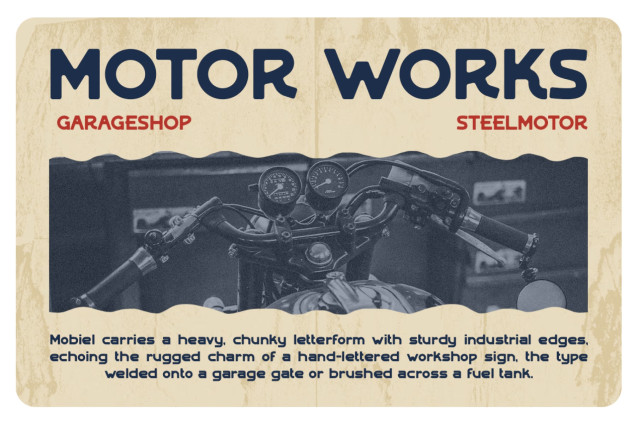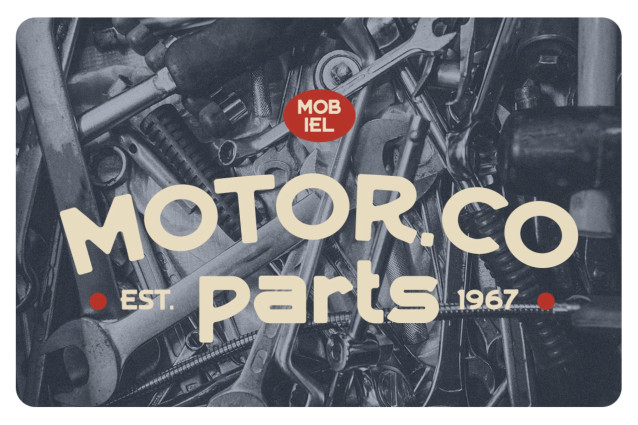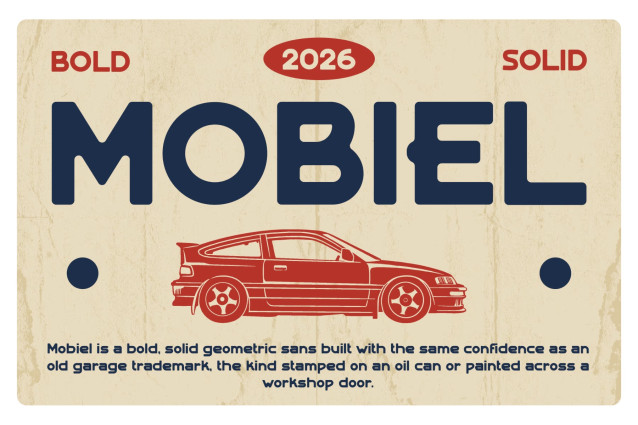
MOBIEL Font
MOBIEL – Bold Roads, Bolder Type
Vintage Font MOBIEL roars onto the scene like a classic muscle car fresh off the lot. To begin with, notice the thick, confident strokes paired with a rugged garage-poster soul. What truly makes it stand out, however, is the contrast between styles. On one hand, you get chunky bold letterforms that feel hand-cut and industrial.
On the other hand, it’s balanced with clean geometric precision, so it never looks messy. As a result, this typeface instantly evokes motor oil, rubber tires, and old workshop signage. At the same time, it still reads crisp enough for modern digital use.